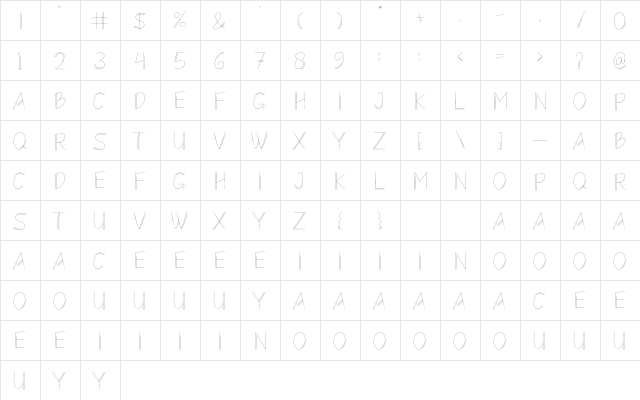
Monolism Light
| Foundry | GilzType |
| Designer | GilzType |
Design Context for Monolism Typeface
Monolism brings the precise, column-aligned rhythm of monospaced typography to designs that value technical clarity and systematic order. The delicate stroke weight brings airiness and refinement to layouts.